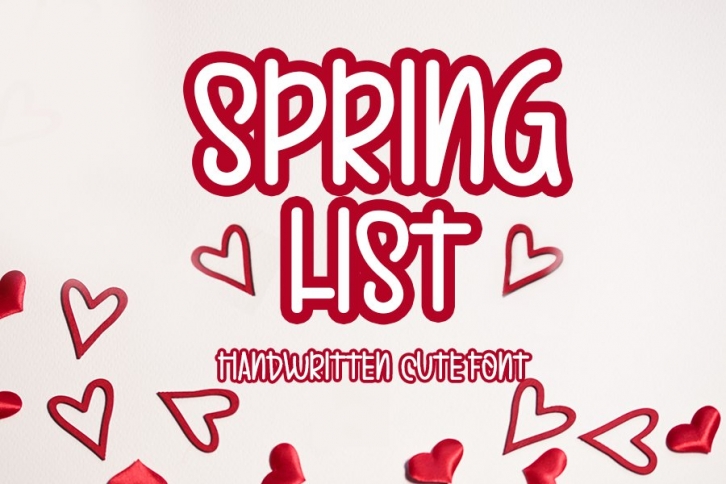
Spring List is a beautiful font that was designed by InermediaSTUDIO. It's a great choice for designers and creatives who need such a font. It was released on August 1, 2020 and the file size is 5.15 MB. Spring List may give a more youthful, expressive and casual look to your project. It is a very beautiful, refined, elegant, and high-quality font.